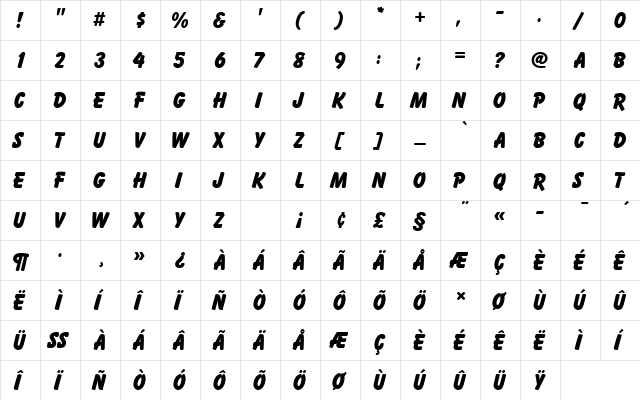
BalloonDExtBolRo1 Regular Font Preview
BalloonDExtBolRo1 Regular
Design Context for BalloonDExtBolRo1 Typeface
BalloonDExtBolRo1 is a composed and adaptable typeface that performs quietly and consistently across a wide range of design contexts.